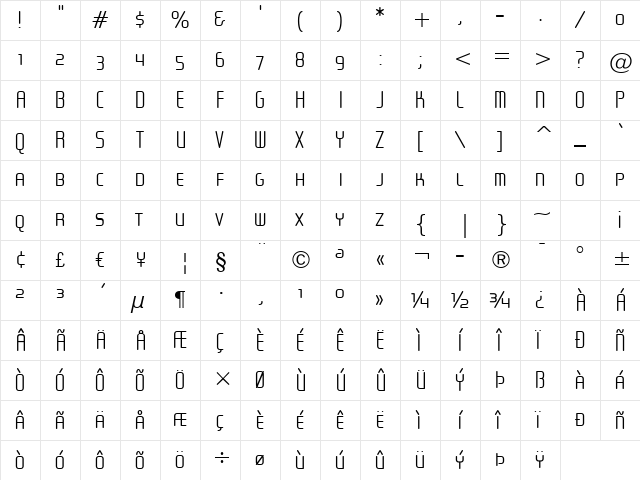
Sugarskin BTN Small Cap Regular
Design Context for Sugarskin BTN Small Cap Typeface
Sugarskin BTN Small Cap offers clean, dependable letterforms without strong stylistic allegiance, making it a practical choice for designers who need flexibility.